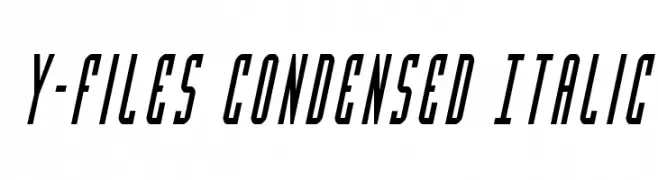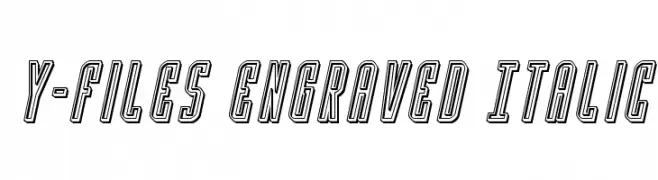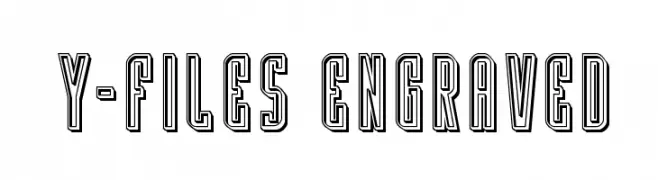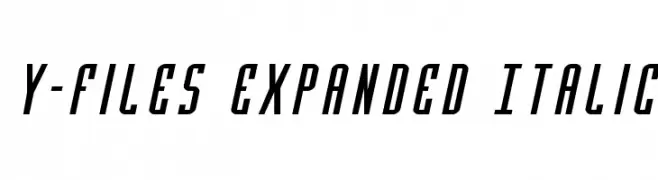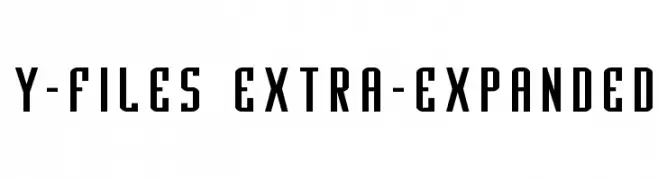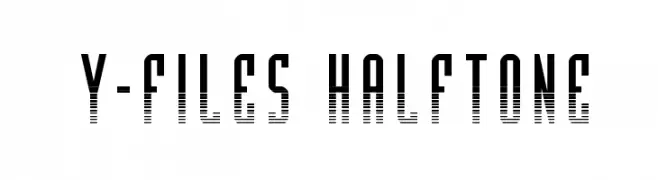
A condensed, italicized font with a modern and dynamic style.
A bold, decorative font with an engraved, three-dimensional appearance.
A bold, engraved italic font with a three-dimensional effect and modern style.
A bold, modern font with elongated, narrow characters and a sleek, professional aesthetic.
A bold, italicized font with a sleek, modern style.
A bold, expanded font with a modern and geometric style.
A bold, extra expanded italic font with a modern and dynamic style.
A modern, gradient-effect font with geometric, vertical emphasis.
A dynamic, italicized font with a gradient effect and a futuristic, modern design.
A modern, halftone-style font with geometric structure and horizontal line patterns.